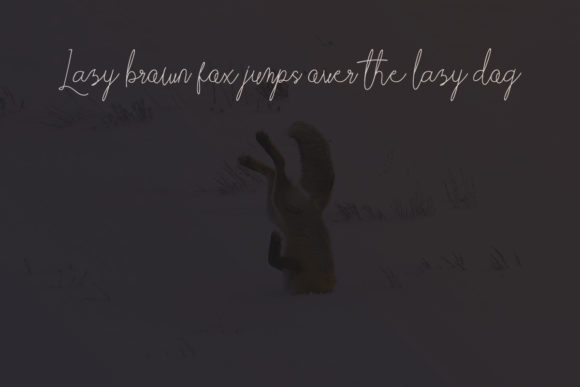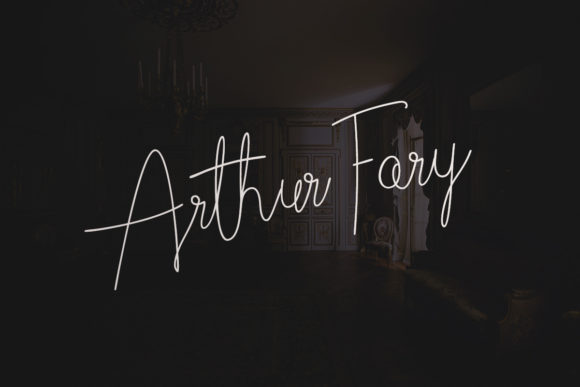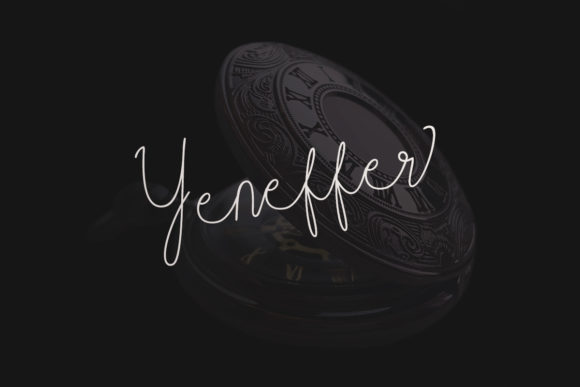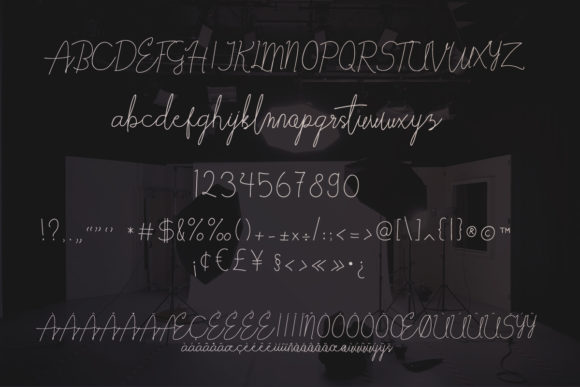
Elabama Font – Free Download
Introduction to Elabama Font
The Elabama is an elegant signature font.
It has a feminine feel and is perfect for signatures, branding, books, magazines, posters, and much more .
Key Features of Elabama Font